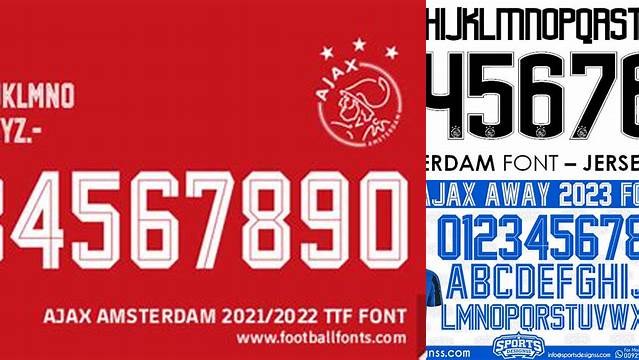
This article delves into the exciting world of the Ajax Amsterdam font, providing everything you need to know for a free download. We'll explore the font's history, its usage, and how you can get your hands on it without spending a dime. Get ready, guys, because we're about to dive deep into the iconic typography that represents one of the world's most celebrated football clubs! Whether you're a die-hard fan wanting to create some awesome fan art, or a designer looking to add a touch of Amsterdam flair to your projects, this guide has got you covered. So, let's kick things off and explore the Ajax Amsterdam font in all its glory!
The History and Significance of the Ajax Font
Okay, so you want to know more about the Ajax Amsterdam font? You've come to the right place! This font is way more than just letters and numbers; it's a symbol. A symbol of a football club with a rich history, a vibrant culture, and a global following. The font itself has evolved over the years, mirroring the club's journey and its changing identity. Understanding the history of this font will give you a greater appreciation for its significance. It's not just about the way the letters look; it's about what they represent. The Ajax Amsterdam font is a visual representation of the team's values, its traditions, and its connection with its fans. It embodies the spirit of the club. The font is often seen on the team's jerseys, stadium signage, merchandise, and promotional materials, it has become an integral part of the club's branding. The evolution of the Ajax Amsterdam font tells a story of change and adaptation, reflecting the club's efforts to stay modern and relevant while preserving its heritage. From the classic, bold styles of the past to the sleek, contemporary designs of today, the font has always served as a visual anchor, keeping the club's identity consistent. The typeface has played a crucial role in the club's visual identity. The typography choices and how it's used have been carefully considered, as the font is more than just an aesthetic choice; it's a tool for communication and a way to build a strong brand identity. So, let's celebrate the history of the Ajax Amsterdam font.
Early Design Influences and Evolution
Back in the day, when football clubs were just starting to think about branding and design, the choices for fonts were pretty limited. We're talking about a time when typefaces were primarily functional, focused on legibility rather than style. The early versions of the Ajax Amsterdam font were probably pretty straightforward. As the club grew in popularity and the world of graphic design began to evolve, so did the font. We might see the influence of the Art Deco or other design movements of the time. The club’s use of typography began to evolve, with variations in weight, style, and the addition of custom elements. The design of the Ajax Amsterdam font was crucial because it had to be easily readable from a distance, especially when displayed on jerseys and stadium signs. The font wasn't just about what it looked like; it also had to be practical. Over the years, the font went through several makeovers, reflecting changes in design trends and the club's evolving image. In those days, it wasn't about being super fancy; it was about creating a visual identity that was easily recognizable and memorable. These early designs laid the foundation for the font we know and love today.
The Font's Role in Ajax's Branding Strategy
Alright, let's talk about how the Ajax Amsterdam font fits into the club's overall branding strategy. The font isn't just a random design choice; it's a carefully considered element that plays a massive role in how the club presents itself to the world. Think of the font as one piece of a larger puzzle. The branding strategy includes the team colors, the logo, the imagery, and the voice that the club uses in its communications. It's all about creating a consistent and recognizable brand identity. The Ajax Amsterdam font helps maintain that consistency. Whenever you see the font, you immediately think of Ajax. It's like seeing the Nike swoosh or the Apple logo – it instantly connects you to the brand. In order to maintain a consistent visual identity, the font is used across all platforms, from the team's website to its social media channels and merchandise. It's everywhere, and it reinforces the club's brand message. The font's presence on everything from jerseys to advertising campaigns helps build brand recognition and brand loyalty. The typeface is one of the most important visual elements that can help create a strong connection between the club and its fans. By using the Ajax Amsterdam font consistently, the club strengthens its brand identity and maintains its unique position in the football world.